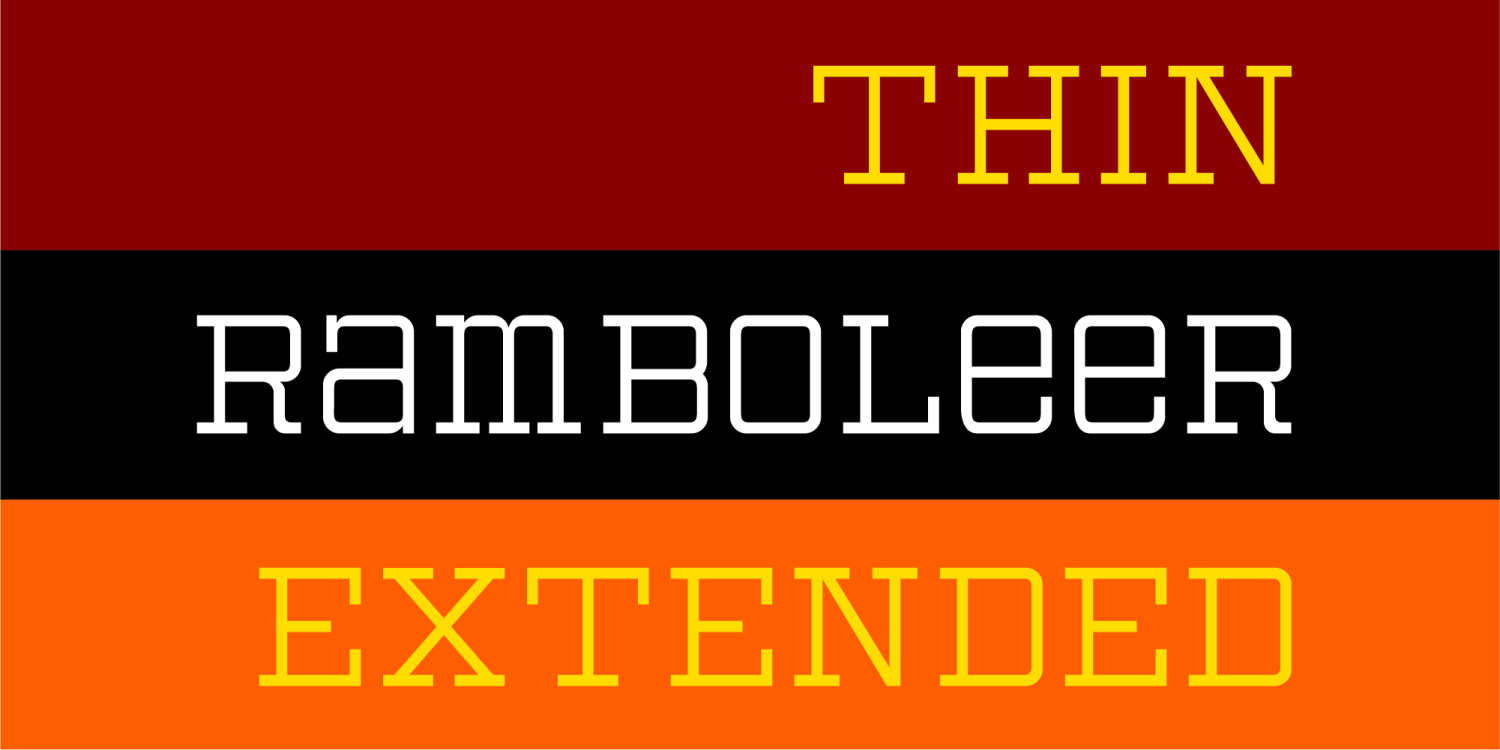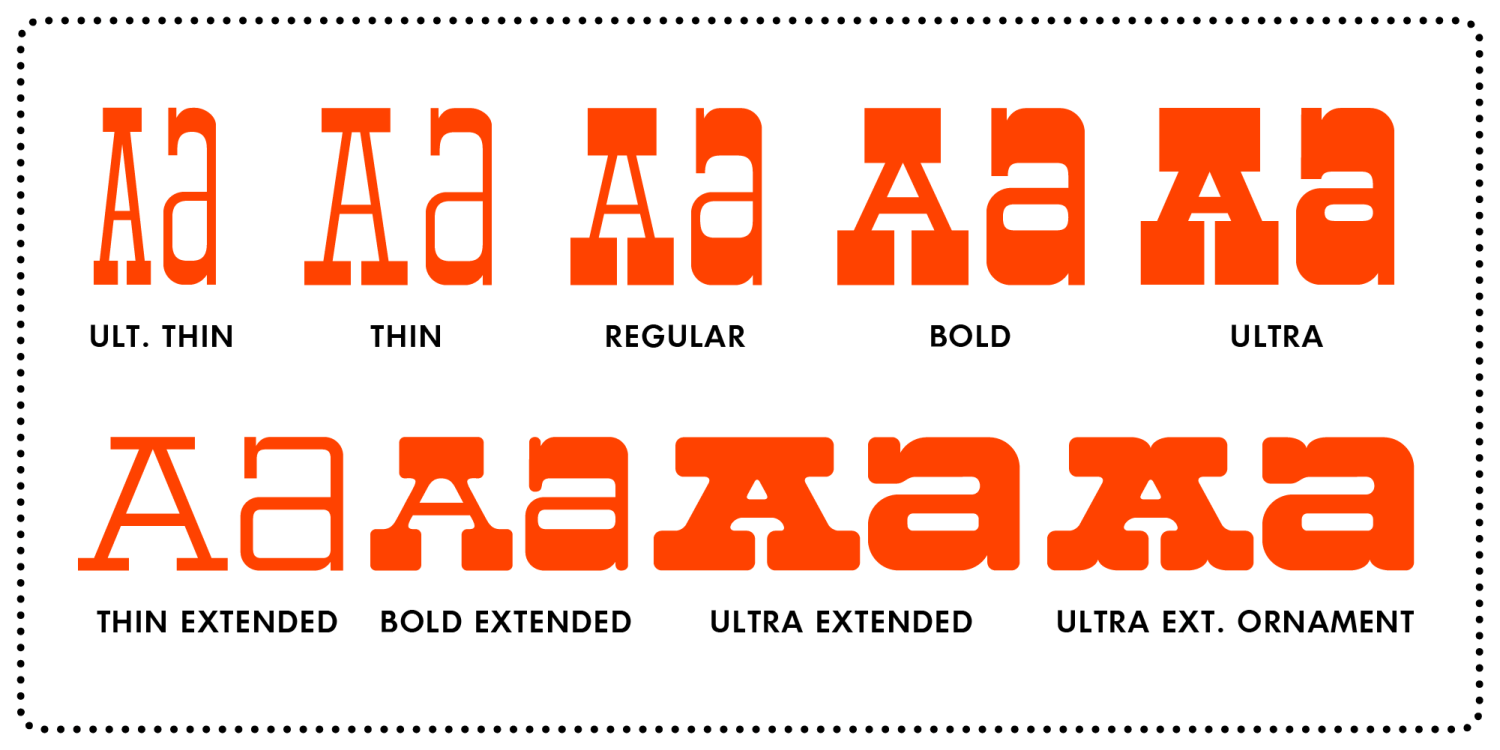
Step into the groovy saloons of typography with Ramboleer, the wild and woolly 1970s Western font that's as bold as a tumbleweed in a dust storm! Each letter slingshots across the page with a swagger that'd make a cowboy jealous, capturing the…